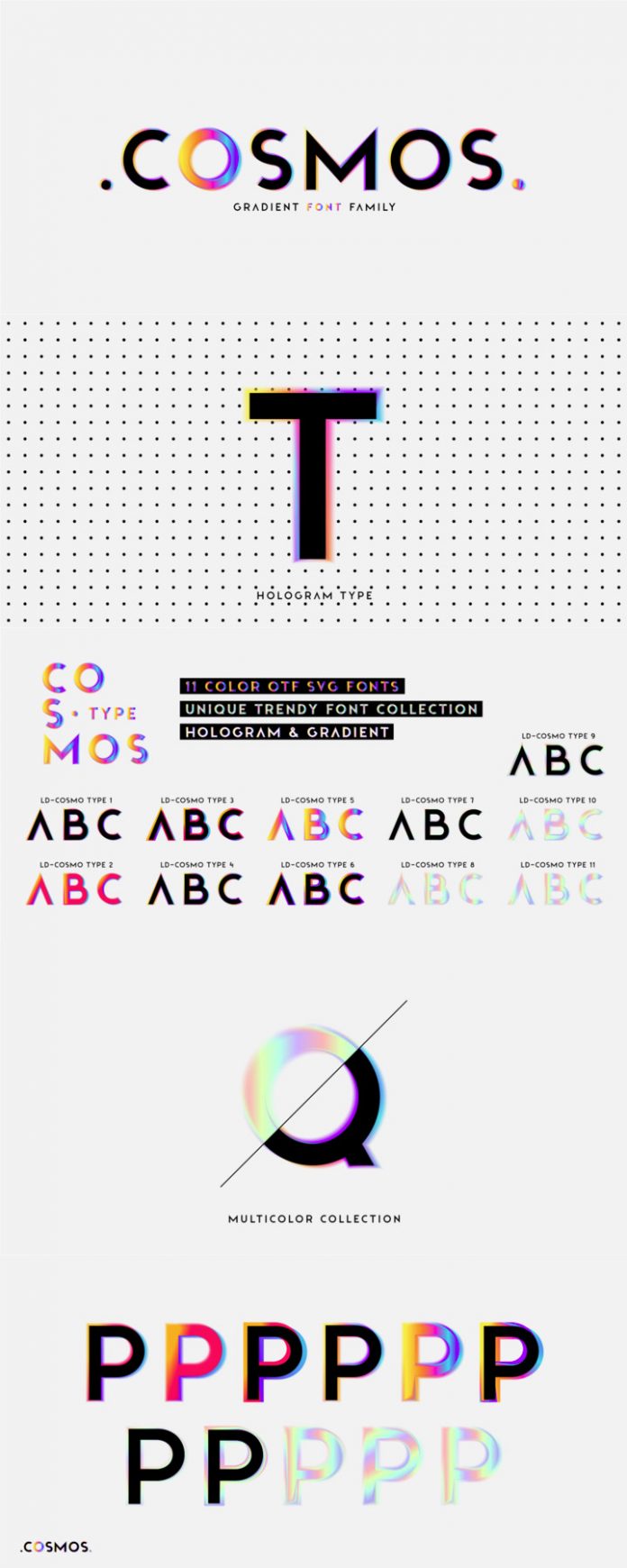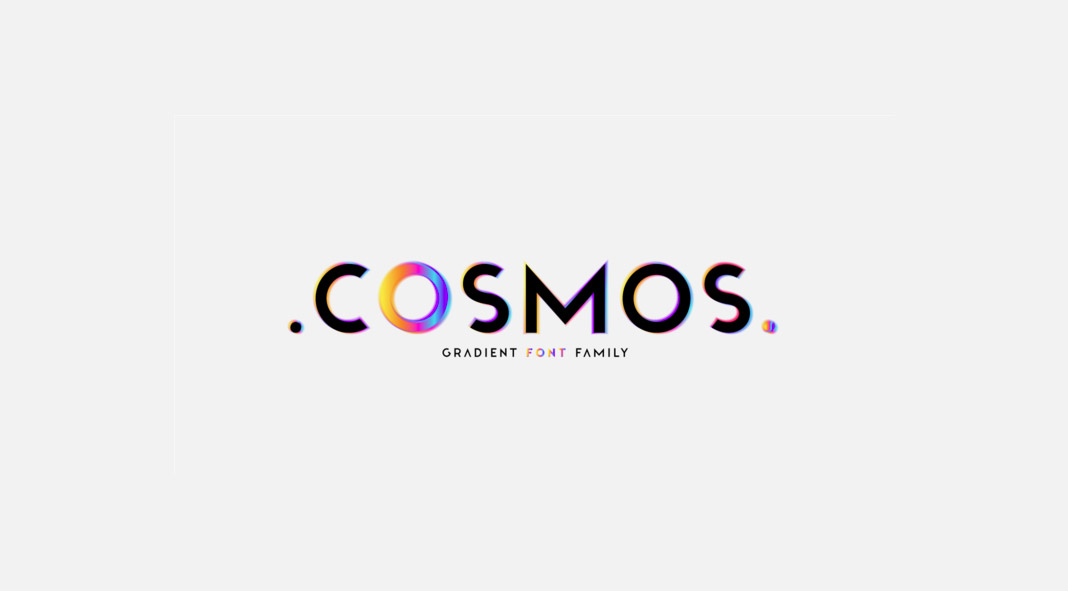
Cosmos, a gradient font family by foundry Luxfont.
Designed by Lauritta Ivanova of foundry Luxfont just recently in 2020, Cosmos is a new font family that combines soft color transitions with clean geometric glyphs. Its bright colorful look is ideal for both web and print design. Despite the glossy and colored style, the Cosmos font family offers great readability. This multi-colored font family is based on the regular version of the Boldini typeface, which means you can combine these two families—they complement each other perfectly.
The Cosmos font family comes with different types of coloring including a highlighted gradient border of letters or fully hologram glyphs—resulting in a large selection of 11 ready-made font styles. Just click on the following link to learn more about the features of this SVG font and how to work with the coloring styles in tools such as Adobe Photoshop or Illustrator.